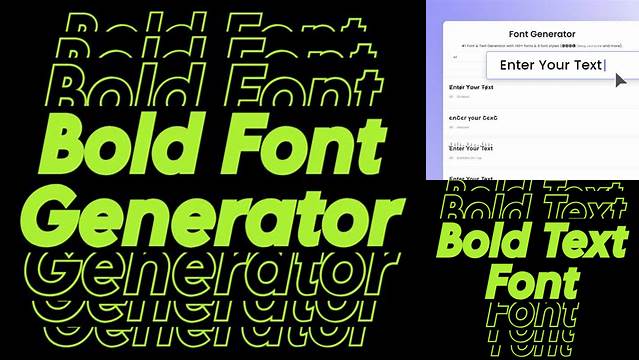
Free Bold Font Generator: Create Striking Text Online
Hey guys! Ever needed to make your text pop? A free bold font generator is your go-to tool. It lets you create eye-catching text without needing to download any fancy software. You can use it for social media, design projects, or just to add some flair to your messages. Let's dive into how you can make the most of these awesome online tools!
1. Understanding Bold Fonts
Alright, let's get the basics down. When we talk about bold fonts, we're referring to fonts where the characters are made thicker and darker. This makes them stand out and grab attention. Why is this important? Well, bold fonts are perfect for headlines, emphasizing key points, or highlighting important information. They're like the spotlight of the text world, ensuring that certain parts of your message get noticed. You might be thinking, "Why not just use a regular font?" Well, sometimes regular fonts just don't cut it. They can blend into the background, especially in a visually cluttered environment. Bold fonts, on the other hand, demand attention. They make your text more readable and can significantly improve the overall impact of your message. So, understanding how and when to use bold fonts is crucial for effective communication and design.
2. What is a Free Bold Font Generator?
So, what exactly is a free bold font generator? Simply put, it's an online tool that allows you to convert regular text into bold text without needing any special software. These generators are super handy because they're usually very easy to use. You just type in your text, and the generator does the rest, spitting out bold font options that you can copy and paste wherever you need them. Why is this so great? Think about it: you don't have to mess around with complicated font settings in different programs. You don't need to download anything that might clutter up your computer or, worse, come with unwanted extras. And best of all, it's free! This makes it accessible to everyone, whether you're a student, a small business owner, or just someone who likes to play around with text. Free bold font generators democratize design, making it easy for anyone to create visually appealing content without any special skills or expensive software.
3. Why Use a Free Bold Font Generator?
Why should you even bother using a free bold font generator? Well, there are tons of reasons! First off, it's incredibly convenient. No downloads, no installations, just instant bold fonts at your fingertips. This is perfect for quick tasks, like creating a catchy headline for a blog post or making a standout caption for an Instagram photo. Second, it saves you time. Instead of fiddling with font settings in different programs, you can quickly generate bold text with a few clicks. This is a lifesaver when you're working on a tight deadline or just want to get things done quickly. Third, it's cost-effective. As the name suggests, these generators are free, which means you don't have to spend money on expensive software or font licenses. This is especially great for small businesses or individuals on a budget. Finally, free bold font generators offer a wide range of styles. Many generators come with different bold font options, so you can find the perfect one to match your style and needs. Whether you want a classic, modern, or quirky bold font, there's a generator out there that can help.
4. Benefits of Using Bold Fonts
The benefits of using bold fonts are numerous. Firstly, and perhaps most importantly, they enhance readability. Bold fonts help to draw the reader's eye to key pieces of information, making it easier to scan and understand the text. This is especially useful in lengthy articles or documents where you want to highlight the most important points. Secondly, bold fonts create visual interest. By using bold text strategically, you can break up large blocks of text and make your content more visually appealing. This can help to keep your audience engaged and prevent them from getting bored. Thirdly, bold fonts improve emphasis. They allow you to emphasize certain words or phrases, making them stand out from the rest of the text. This is a great way to highlight important information, such as key takeaways or calls to action. Finally, bold fonts can improve branding. By using a specific bold font consistently across your marketing materials, you can create a strong and recognizable brand identity. This can help to build brand awareness and make your business more memorable. In short, using bold fonts is a simple yet effective way to improve the readability, visual appeal, emphasis, and branding of your content.
5. How to Choose the Right Bold Font
Choosing the right bold font can make or break your design. First, consider the context. What are you using the bold font for? A professional report? A fun social media post? The context will help you determine the appropriate style. Next, think about readability. While bold fonts are designed to stand out, they should still be easy to read. Avoid fonts that are too thick or distorted, as these can be difficult to decipher. Also, consider the overall aesthetic. Does the bold font match the tone and style of your content? A modern design might call for a sleek, sans-serif bold font, while a more traditional design might benefit from a classic, serif bold font. Don't be afraid to experiment with different options until you find one that feels right. Finally, pay attention to spacing and kerning. Make sure the letters are properly spaced and that the bold font looks balanced and harmonious. A well-chosen bold font can elevate your design and make your message more impactful, so take the time to find the perfect one.
6. Best Free Bold Font Generators Online
Alright, let's talk specifics! What are some of the best free bold font generators out there? One popular option is YayText, which offers a variety of bold font styles that you can easily copy and paste into your social media posts. Another great choice is LingoJam, which lets you generate bold text in different styles and even create fancy text with symbols and emojis. For a more straightforward option, check out Convert Case, which offers a simple bold text converter along with other useful text tools. These generators are all super easy to use and offer a range of options to suit your needs. Just type in your text, choose your desired bold font style, and copy and paste the result wherever you want. Whether you're looking for a simple bold font or something more elaborate, these free bold font generators have got you covered. So go ahead and give them a try – you might just find your new favorite tool for creating eye-catching text!
7. Using Bold Fonts on Social Media
Using bold fonts on social media is a fantastic way to make your posts stand out. Think about it: your content is competing with countless other posts in a crowded feed. A bold font can instantly grab attention and make people stop scrolling. Use bold fonts to highlight key words in your captions, emphasize calls to action, or simply add some visual flair to your profile. For example, you could use bold text to announce a special offer, highlight a new product, or simply emphasize a key message. Just remember to use bold fonts sparingly. Overusing them can make your posts look cluttered and overwhelming. Instead, focus on using bold fonts strategically to draw attention to the most important parts of your message. With a little creativity, you can use bold fonts to make your social media posts more engaging, memorable, and effective.
8. Bold Font Generator for Instagram
Instagram is all about visuals, so making your text stand out is crucial. A bold font generator for Instagram can be a game-changer. Since Instagram doesn't offer a native bold font option, you'll need to use a generator to create bold text that you can copy and paste into your captions and bio. These generators work by converting your text into special Unicode characters that appear bold on Instagram. This allows you to add emphasis to key words, highlight calls to action, or simply add some visual interest to your profile. When using a bold font generator for Instagram, keep in mind that not all fonts are created equal. Some bold fonts may look great on your computer but appear distorted or unreadable on Instagram. So, be sure to test out different options and choose a bold font that looks good on all devices. With a little effort, you can use a bold font generator to make your Instagram profile more visually appealing and engaging.
9. Bold Font Generator for Facebook
Facebook is another platform where bold fonts can make a big difference. With so much content vying for attention, using bold fonts can help your posts stand out from the crowd. A bold font generator for Facebook allows you to create bold text that you can copy and paste into your status updates, comments, and messages. This can be a great way to emphasize key points, highlight important information, or simply add some visual flair to your profile. When using bold fonts on Facebook, keep in mind that readability is key. Choose a bold font that is easy to read on both desktop and mobile devices. Also, avoid overusing bold fonts, as this can make your posts look cluttered and overwhelming. Instead, use bold fonts strategically to draw attention to the most important parts of your message. With a little creativity, you can use a bold font generator to make your Facebook posts more engaging and effective.
10. Bold Font Generator for Twitter
Twitter is all about brevity and impact, so making your tweets stand out is essential. A bold font generator for Twitter can help you do just that. Since Twitter doesn't offer a native bold font option, you'll need to use a generator to create bold text that you can copy and paste into your tweets. This can be a great way to emphasize key words, highlight important information, or simply add some visual flair to your profile. When using a bold font generator for Twitter, keep in mind that character limits are tight. So, use bold fonts sparingly and focus on making the most of every character. Also, choose a bold font that is easy to read on both desktop and mobile devices. With a little creativity, you can use a bold font generator to make your Twitter tweets more engaging and effective.
11. Using Bold Fonts in Marketing Materials
In the world of marketing, getting your message across clearly and effectively is paramount. Bold fonts can be a marketer's best friend in this endeavor. Whether it's for brochures, flyers, or online ads, using bold fonts strategically can draw attention to key information, highlight special offers, and make your marketing materials more visually appealing. When used correctly, bold fonts help guide the reader's eye, ensuring they don't miss the most important details. They create a sense of urgency and importance, which can be invaluable in persuading potential customers. Remember, consistency is key. Use the same bold font across all your marketing materials to establish brand recognition and reinforce your message. With bold fonts, your marketing materials are sure to leave a lasting impression.
12. Bold Fonts and Accessibility
While bold fonts can enhance readability, it's crucial to consider accessibility. For individuals with visual impairments, overly bold fonts can sometimes appear blurry or distorted, making the text difficult to read. It's important to strike a balance between making text stand out and ensuring it remains accessible to everyone. When using bold fonts, choose fonts with clear, well-defined characters. Avoid fonts that are excessively thick or decorative, as these can reduce readability. Also, consider the contrast between the text and the background. High contrast can make text easier to read for people with low vision. Finally, always test your bold fonts with different screen sizes and devices to ensure they remain readable across various platforms. By considering accessibility, you can create content that is both visually appealing and inclusive.
13. Combining Bold Fonts with Other Font Styles
Combining bold fonts with other font styles can add depth and visual interest to your designs. Pairing a bold font with a lighter, more delicate font can create a striking contrast that draws the eye. When combining fonts, it's important to choose fonts that complement each other. Avoid fonts that are too similar, as this can create a confusing and muddled effect. Instead, look for fonts that have contrasting styles but share similar characteristics, such as x-height or stroke weight. Also, consider the hierarchy of your text. Use bold fonts for headlines and key points, and use lighter fonts for body text. This will help guide the reader's eye and make your content more organized and readable. With a little experimentation, you can create beautiful and effective font combinations that enhance the overall impact of your designs.
14. Common Mistakes to Avoid When Using Bold Fonts
Using bold fonts effectively requires a bit of finesse. One common mistake is overusing bold fonts. Too much bold text can make your content look cluttered and overwhelming, defeating the purpose of drawing attention to key information. Another mistake is choosing a bold font that is difficult to read. Avoid fonts that are excessively thick or decorative, as these can reduce readability. Also, be careful when using bold fonts in all caps. Bold text in all caps can appear shouty and aggressive, which may not be the message you want to convey. Finally, make sure your bold fonts are consistent with your overall design. Avoid mixing too many different bold font styles, as this can create a disjointed and unprofessional look. By avoiding these common mistakes, you can use bold fonts effectively to enhance the readability and impact of your content.
15. Bold Fonts in Web Design
In web design, bold fonts play a crucial role in creating a visually appealing and user-friendly experience. Bold fonts can be used to highlight headlines, emphasize key points, and guide the user's eye through the page. When used strategically, bold fonts can improve readability, increase engagement, and enhance the overall aesthetics of your website. When choosing bold fonts for your website, consider the overall design and branding. Choose fonts that complement your website's color scheme and style. Also, make sure your bold fonts are easy to read on all devices, including desktops, tablets, and smartphones. Finally, pay attention to spacing and kerning to ensure your bold fonts look balanced and harmonious. With the right bold fonts, you can create a website that is both visually stunning and highly effective.
16. Free Bold Font Generator Apps
For those who prefer working on their mobile devices, free bold font generator apps are a fantastic option. These apps allow you to create bold text on the go, making it easy to add emphasis to your social media posts, messages, and other content. Many free bold font generator apps offer a variety of bold font styles, allowing you to customize your text to suit your needs. Some apps even include additional features, such as the ability to create fancy text with symbols and emojis. When choosing a free bold font generator app, look for one that is easy to use, offers a variety of bold font styles, and is compatible with your device. Also, be sure to read reviews to ensure the app is reliable and doesn't contain any malware. With a free bold font generator app, you can create eye-catching bold text wherever you are.
17. The Psychology of Bold Fonts
Have you ever wondered why bold fonts are so effective at grabbing attention? It's all about psychology. Bold fonts trigger a subconscious response in our brains, signaling importance and urgency. When we see bold text, our brains automatically prioritize it, making it more likely that we'll pay attention to it. This is why bold fonts are so effective for highlighting key information, emphasizing calls to action, and creating a sense of urgency. By understanding the psychology of bold fonts, you can use them more effectively to influence your audience and achieve your goals. So, next time you're creating content, think about how you can use bold fonts to tap into the power of the human mind.
18. Creating Custom Bold Fonts
If you're feeling adventurous, you can even create your own custom bold fonts. While this requires some technical skills and specialized software, the results can be truly unique and personalized. Creating a custom bold font allows you to tailor the font to your specific needs and preferences. You can adjust the thickness, spacing, and style of the font to create a look that is all your own. There are many different font creation programs available, ranging from free open-source options to professional-grade software. With a little practice and patience, you can create a custom bold font that perfectly reflects your brand and style.
19. Bold Fonts in Email Marketing
In the fast-paced world of email marketing, capturing your subscribers' attention is crucial. Bold fonts can be a powerful tool for achieving this goal. Use bold fonts to highlight key information in your email, such as special offers, deadlines, and calls to action. Bold fonts can also be used to break up large blocks of text and make your email more visually appealing. When using bold fonts in email marketing, it's important to consider the overall design of your email. Choose bold fonts that complement your email's color scheme and style. Also, make sure your bold fonts are easy to read on all devices, including desktops, tablets, and smartphones. With the right bold fonts, you can create email campaigns that are both visually engaging and highly effective.
20. Bold Fonts for Resumes
When it comes to creating a resume that stands out, every detail matters. Bold fonts can be a valuable asset in highlighting your skills, experience, and accomplishments. Use bold fonts to emphasize key information, such as your job titles, company names, and dates of employment. Bold fonts can also be used to draw attention to your most impressive achievements. When using bold fonts on your resume, it's important to maintain a professional and consistent look. Choose a bold font that is easy to read and complements your resume's overall design. Also, avoid overusing bold fonts, as this can make your resume look cluttered and overwhelming. With the right bold fonts, you can create a resume that is both visually appealing and highly effective at showcasing your qualifications.
21. Alternatives to Bold Fonts
While bold fonts are a great way to emphasize text, they aren't the only option. There are several alternatives that can achieve a similar effect. One alternative is using italics. Italics can be used to add emphasis to key words and phrases, just like bold fonts. Another alternative is underlining. Underlining can be used to draw attention to important information, such as links and calls to action. You can also use color to highlight text. Using a different color for key words and phrases can make them stand out from the rest of the text. Finally, you can increase the font size of key words and phrases. This will make them more prominent and draw the reader's eye. By exploring these alternatives, you can find the best way to emphasize text in your designs.
22. The Future of Bold Fonts
What does the future hold for bold fonts? As technology continues to evolve, bold fonts are likely to become even more versatile and customizable. We may see the emergence of new bold font styles that are specifically designed for digital devices. We may also see the development of tools that allow us to create custom bold fonts with even greater ease. One thing is certain: bold fonts will continue to play a crucial role in communication and design. Whether it's for highlighting key information, emphasizing calls to action, or simply adding some visual flair, bold fonts will remain a valuable tool for capturing attention and conveying meaning.
23. Bold Fonts and SEO
When it comes to search engine optimization (SEO), bold fonts can play a subtle but important role. While search engines don't directly use bold fonts as a ranking factor, they can indirectly influence your SEO by improving readability and user engagement. When you use bold fonts to highlight key words and phrases, you make your content more scannable and easier to understand. This can lead to increased time on page, lower bounce rates, and improved user satisfaction – all of which are positive signals for search engines. So, while bold fonts may not be a magic bullet for SEO, they can be a valuable tool for creating content that is both user-friendly and search engine-friendly.
24. Legality of Using Free Bold Font Generators
Before you start using a free bold font generator, it's important to understand the legal aspects. In most cases, using a free bold font generator is perfectly legal, as long as you're not using the generated fonts for commercial purposes without the proper license. Many free bold font generators use fonts that are licensed under open-source licenses, which allow you to use them for personal and non-commercial purposes. However, if you plan to use the generated fonts for commercial purposes, such as in your business logo or marketing materials, you may need to purchase a commercial license. Always check the terms of use of the free bold font generator before using it to ensure that you're complying with the legal requirements.
25. Bold Fonts in Presentations
In presentations, bold fonts can be a powerful tool for conveying your message clearly and effectively. Use bold fonts to highlight key points, emphasize important data, and guide your audience's attention. When used strategically, bold fonts can make your slides more visually appealing and easier to understand. When choosing bold fonts for your presentations, consider the overall design of your slides. Choose bold fonts that complement your presentation's color scheme and style. Also, make sure your bold fonts are easy to read on all devices, including projectors and screens. With the right bold fonts, you can create presentations that are both engaging and informative.
26. Bold Fonts in Print Media
In print media, bold fonts have been a staple for centuries. From newspapers to magazines to books, bold fonts have been used to highlight headlines, emphasize key points, and draw the reader's eye. When used effectively, bold fonts can improve readability, increase engagement, and enhance the overall aesthetics of your printed materials. When choosing bold fonts for print media, consider the type of paper, the printing process, and the overall design. Choose bold fonts that are easy to read and that complement the style of your publication. Also, pay attention to spacing and kerning to ensure your bold fonts look balanced and harmonious. With the right bold fonts, you can create printed materials that are both visually appealing and highly effective.
27. Advanced Techniques with Bold Font Generators
Ready to take your bold font game to the next level? There are several advanced techniques you can use with bold font generators to create even more unique and eye-catching designs. One technique is to combine different bold font styles. For example, you could use a bold serif font for your headline and a bold sans-serif font for your body text. Another technique is to use bold fonts in conjunction with other text effects, such as shadows, gradients, or outlines. You can also experiment with different colors and sizes to create a more dynamic and visually appealing effect. By mastering these advanced techniques, you can use bold font generators to create truly stunning designs.
28. Integrating Bold Fonts into Your Brand Identity
Your brand identity is the visual representation of your company, and bold fonts can play a significant role in shaping it. By choosing a specific bold font and using it consistently across all your marketing materials, you can create a strong and recognizable brand identity. When choosing a bold font for your brand, consider your company's values, target audience, and overall style. Choose a bold font that reflects your company's personality and that resonates with your target audience. Also, make sure your bold font is easy to read and that it works well in a variety of contexts, from your website to your business cards. With the right bold font, you can create a brand identity that is both memorable and effective.
29. Troubleshooting Common Issues with Bold Font Generators
Like any technology, bold font generators can sometimes encounter issues. One common issue is that the generated bold font doesn't display correctly on certain devices or platforms. This can be due to compatibility issues with the font or with the device's operating system. To troubleshoot this issue, try using a different bold font generator or try using a different device or platform. Another common issue is that the generated bold font looks distorted or blurry. This can be due to the font being scaled incorrectly or due to the device's display resolution. To troubleshoot this issue, try adjusting the font size or try using a different display. By troubleshooting these common issues, you can ensure that your bold fonts always look their best.
30. Resources for Learning More About Bold Fonts
Want to delve deeper into the world of bold fonts? There are many excellent resources available online and in print. Websites like Fonts.com and MyFonts.com offer a wealth of information about different bold font styles, including their history, characteristics, and best uses. You can also find many tutorials and articles online that teach you how to use bold fonts effectively in your designs. If you prefer learning from books, there are many excellent books available on typography and graphic design that cover the topic of bold fonts in detail. By exploring these resources, you can expand your knowledge of bold fonts and become a true master of typography.